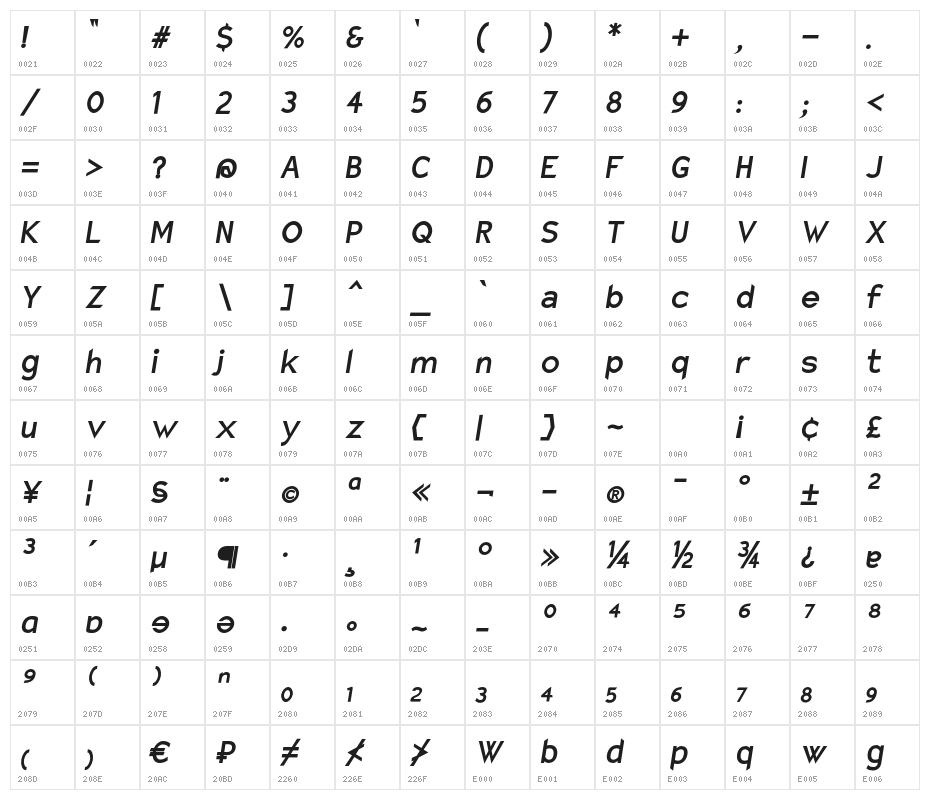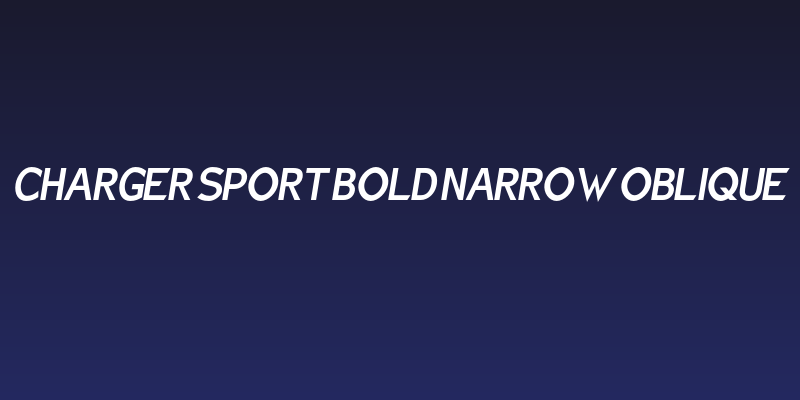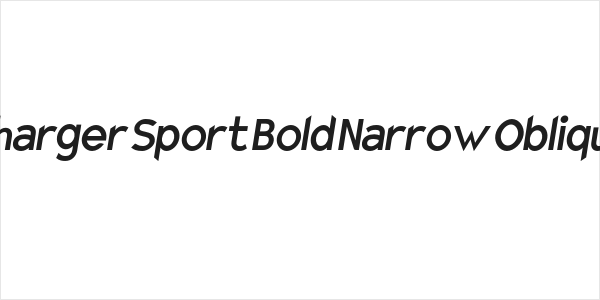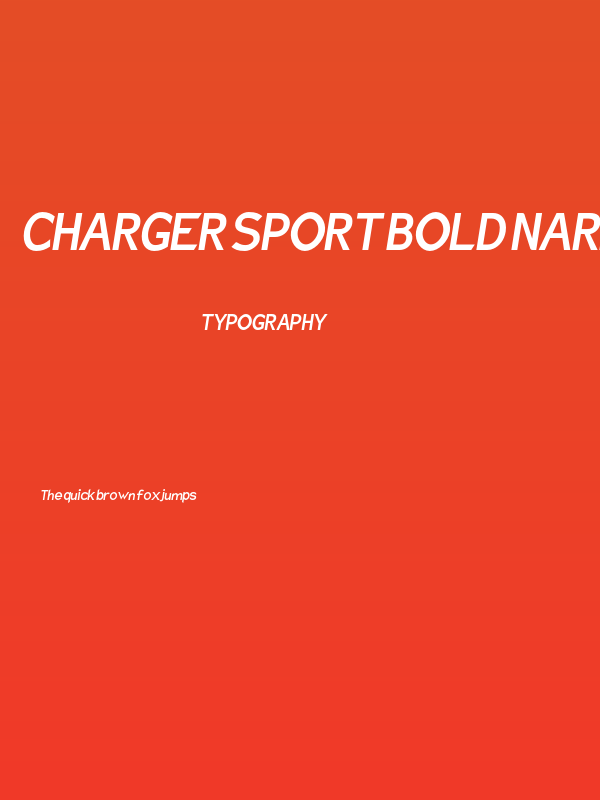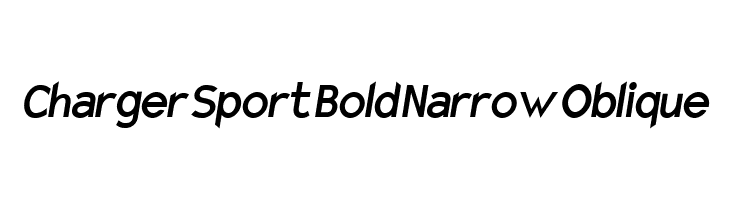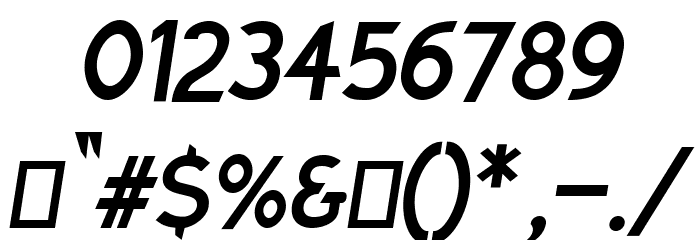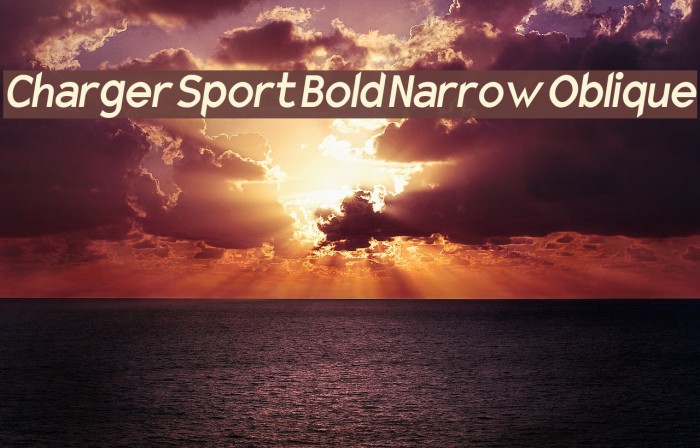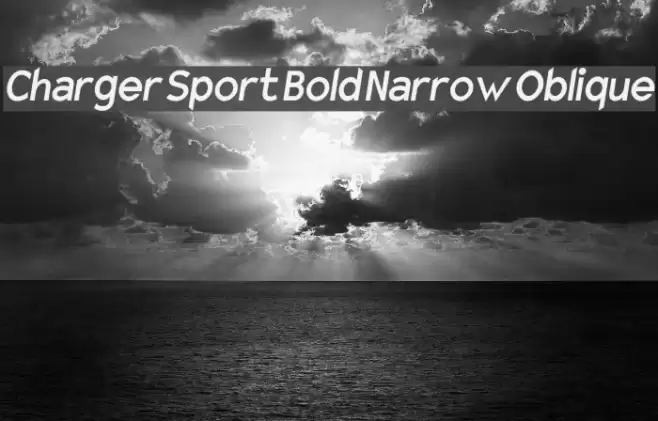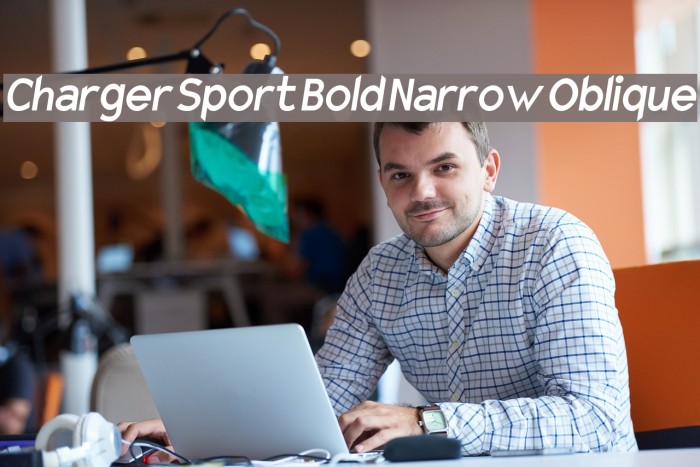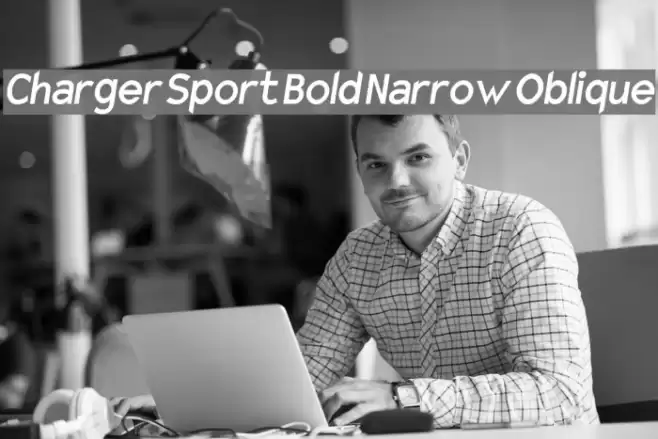
Charger Sport Bold Narrow Oblique Font
Charger Sport Bold Narrow Oblique Description
This font features a bold and narrow design with an oblique slant, giving it a dynamic and sporty appearance. The uppercase and lowercase letters are consistently styled, maintaining a sleek and modern look. The numbers are clear and easy to read, complementing the overall aesthetic. Special characters are included, matching the font's bold and narrow characteristics. The oblique angle adds a sense of motion and energy, making it suitable for projects that require a contemporary and active feel.
| Proposed Projects | Ideal for sports branding, dynamic posters, modern advertisements, and activewear designs. |